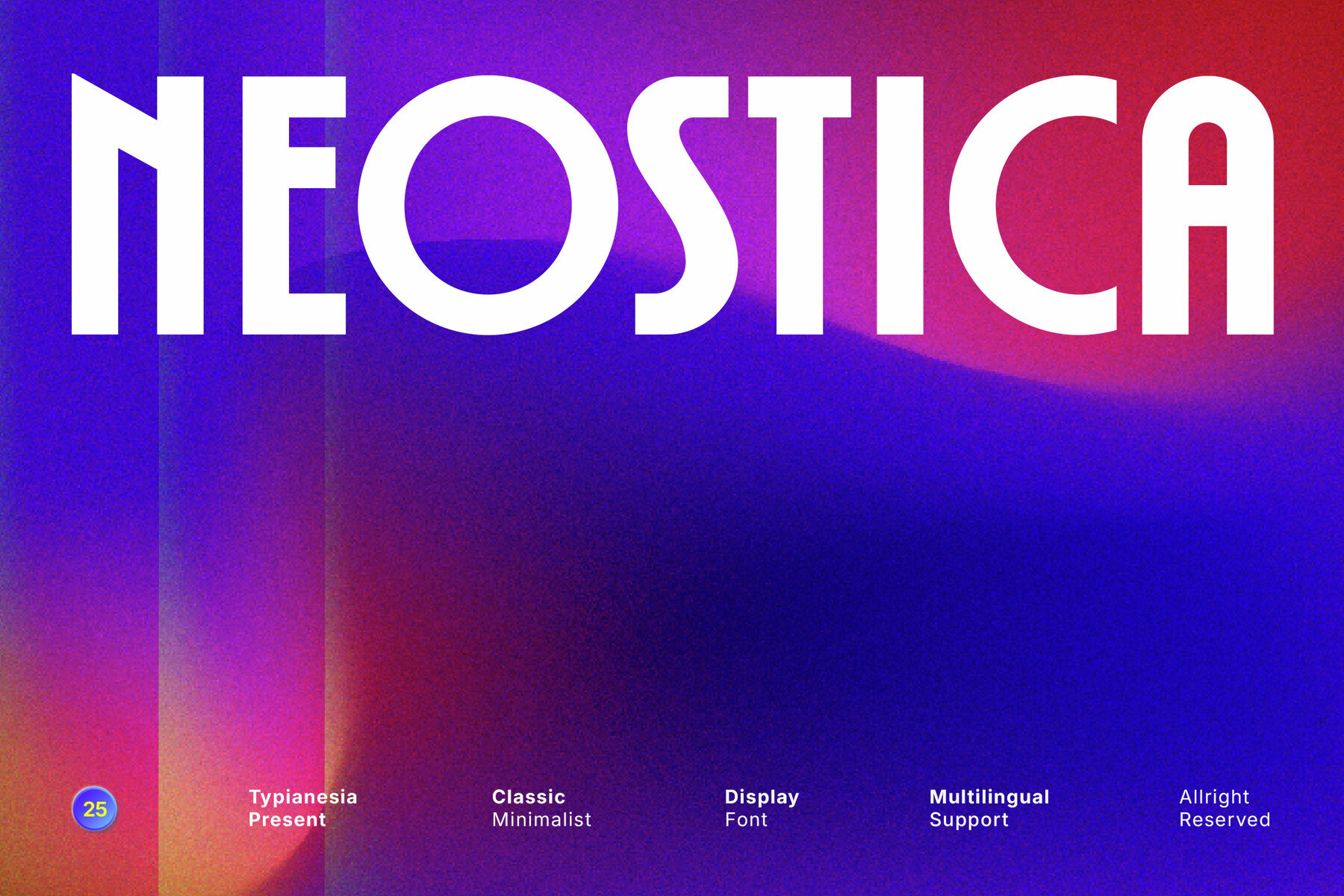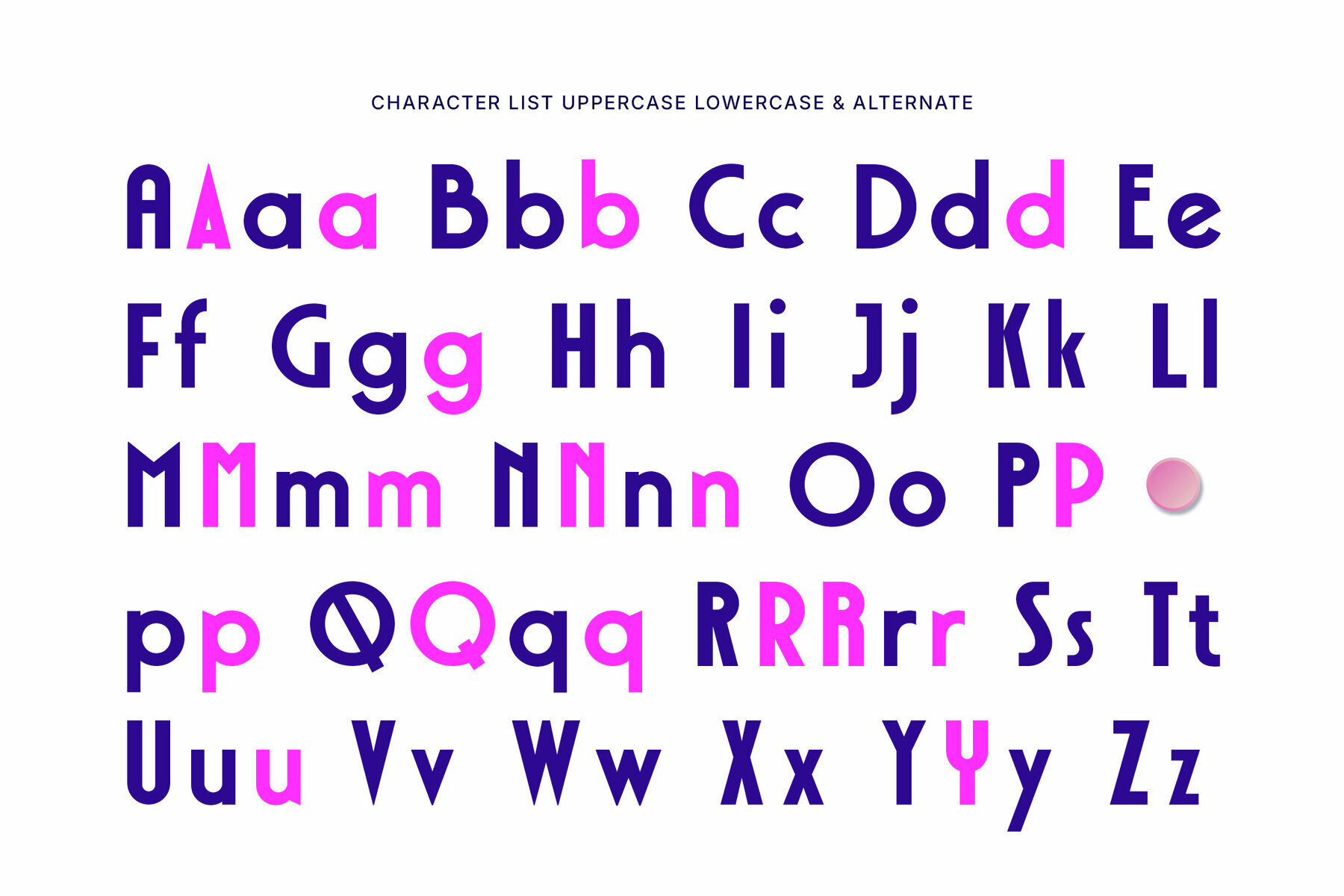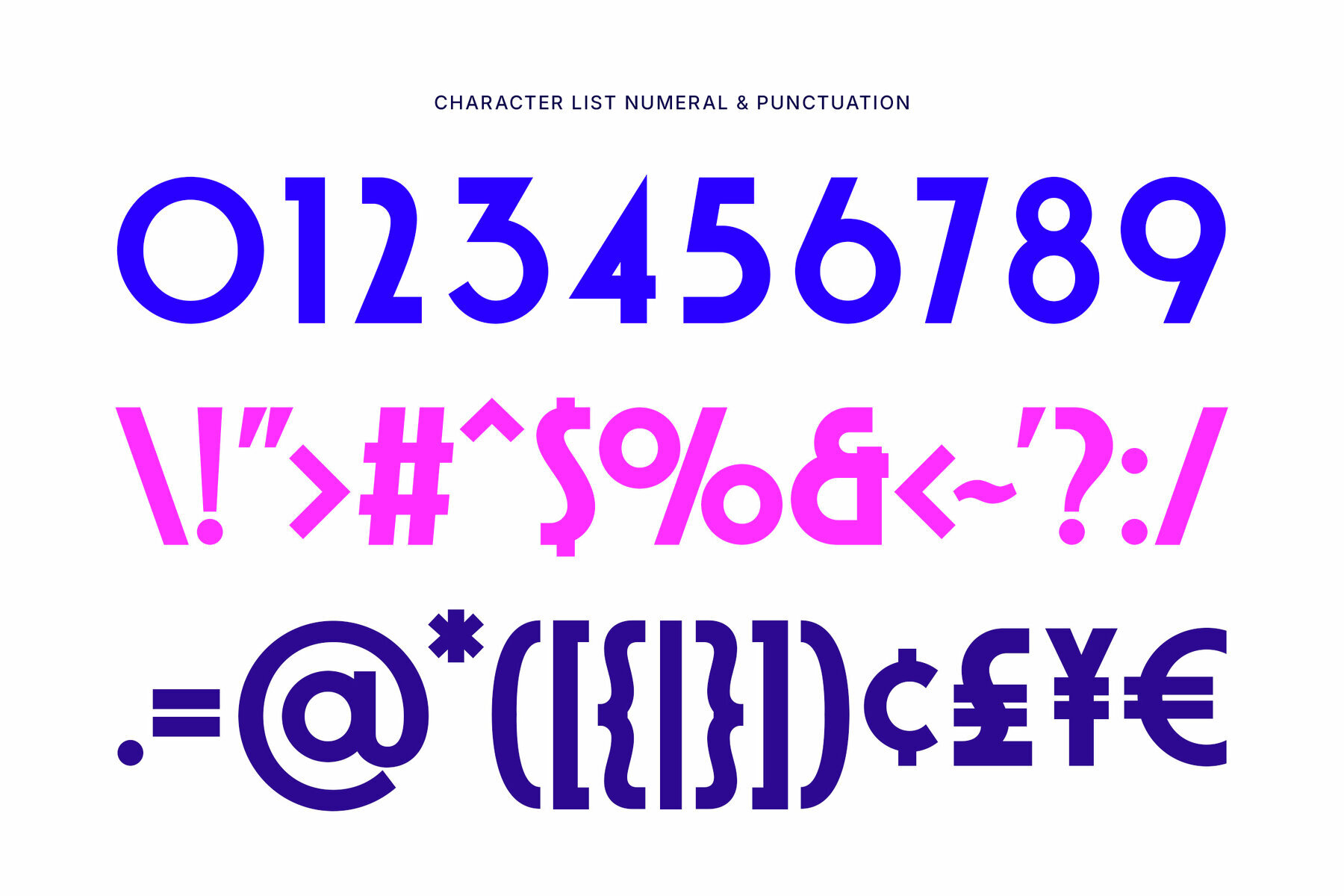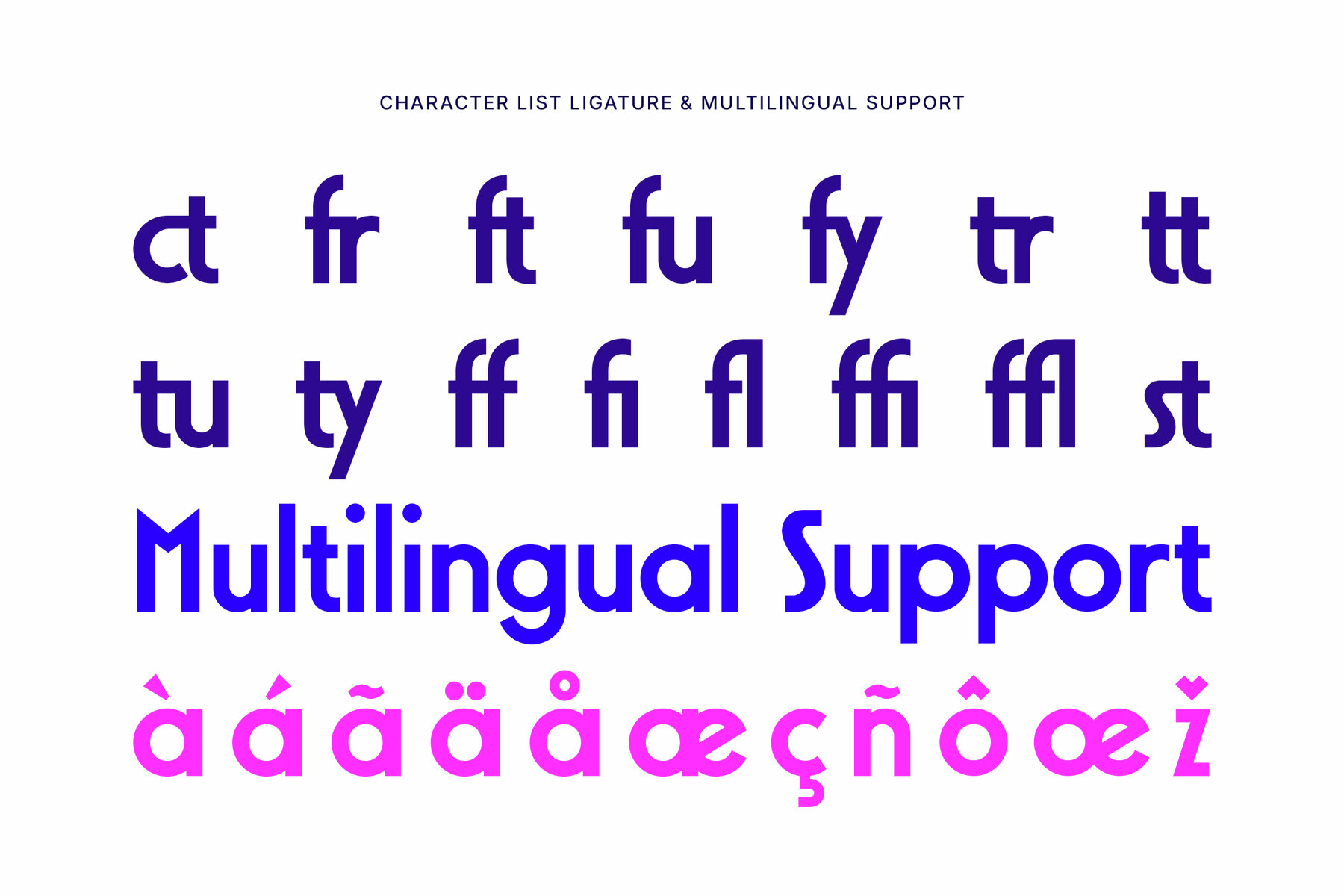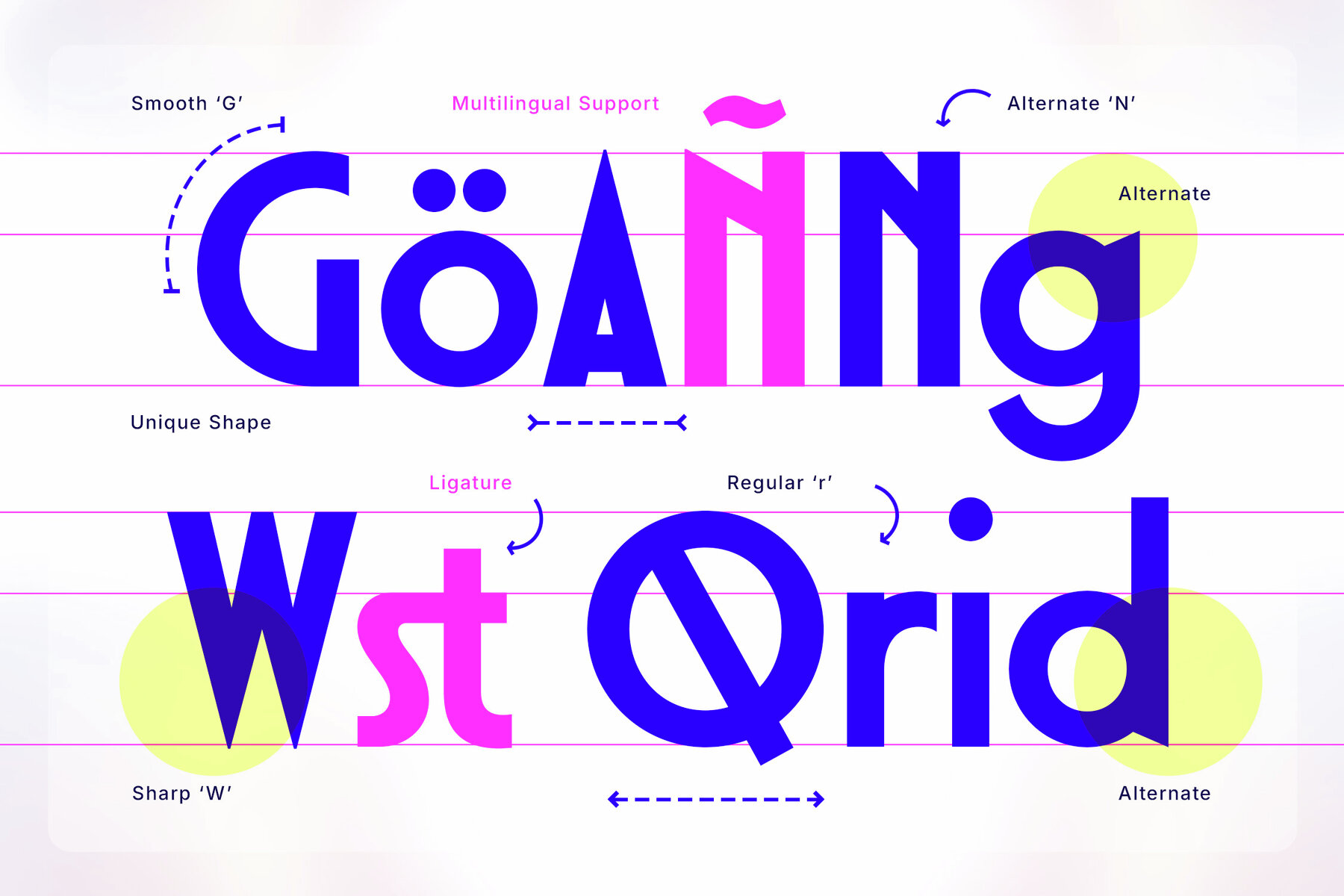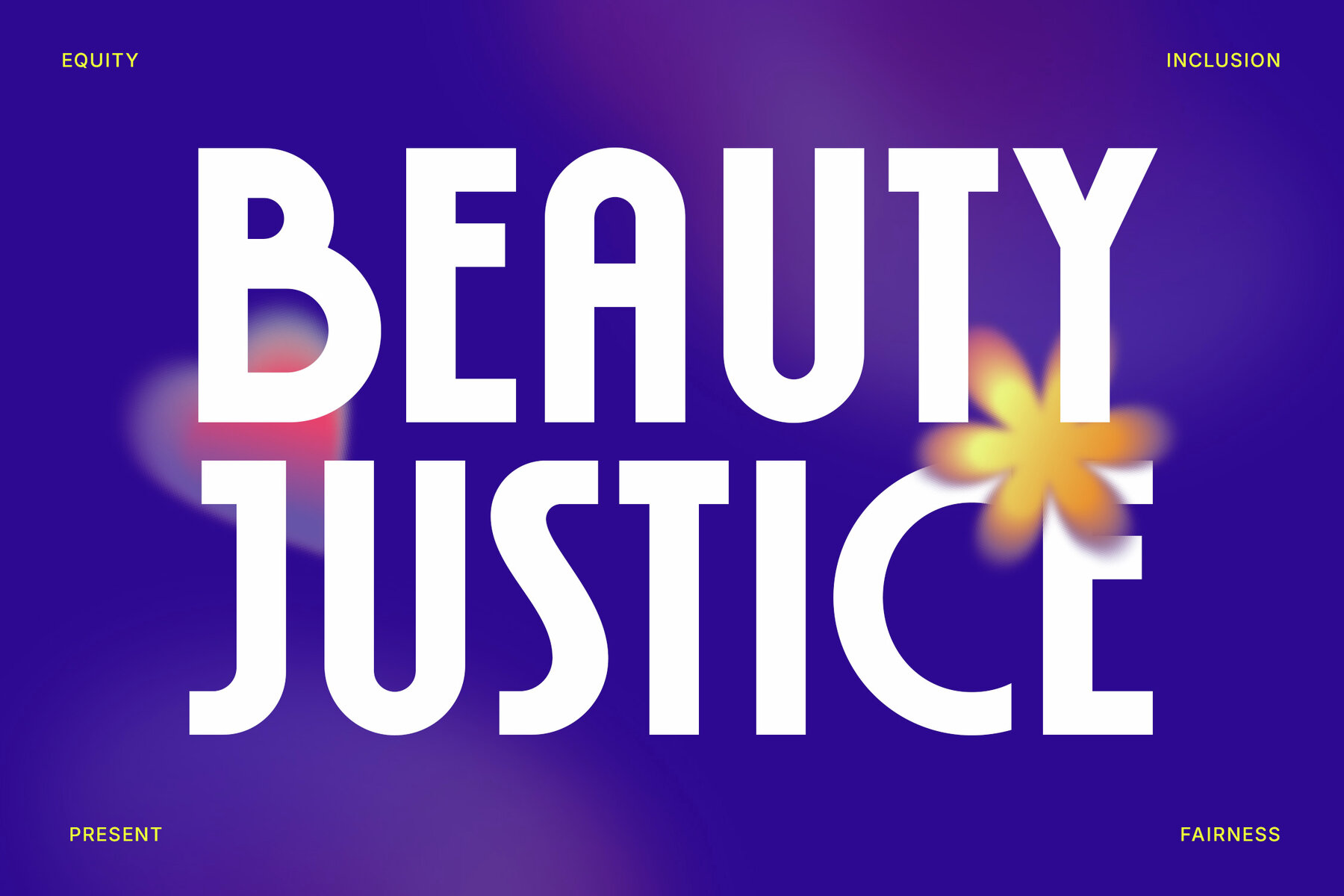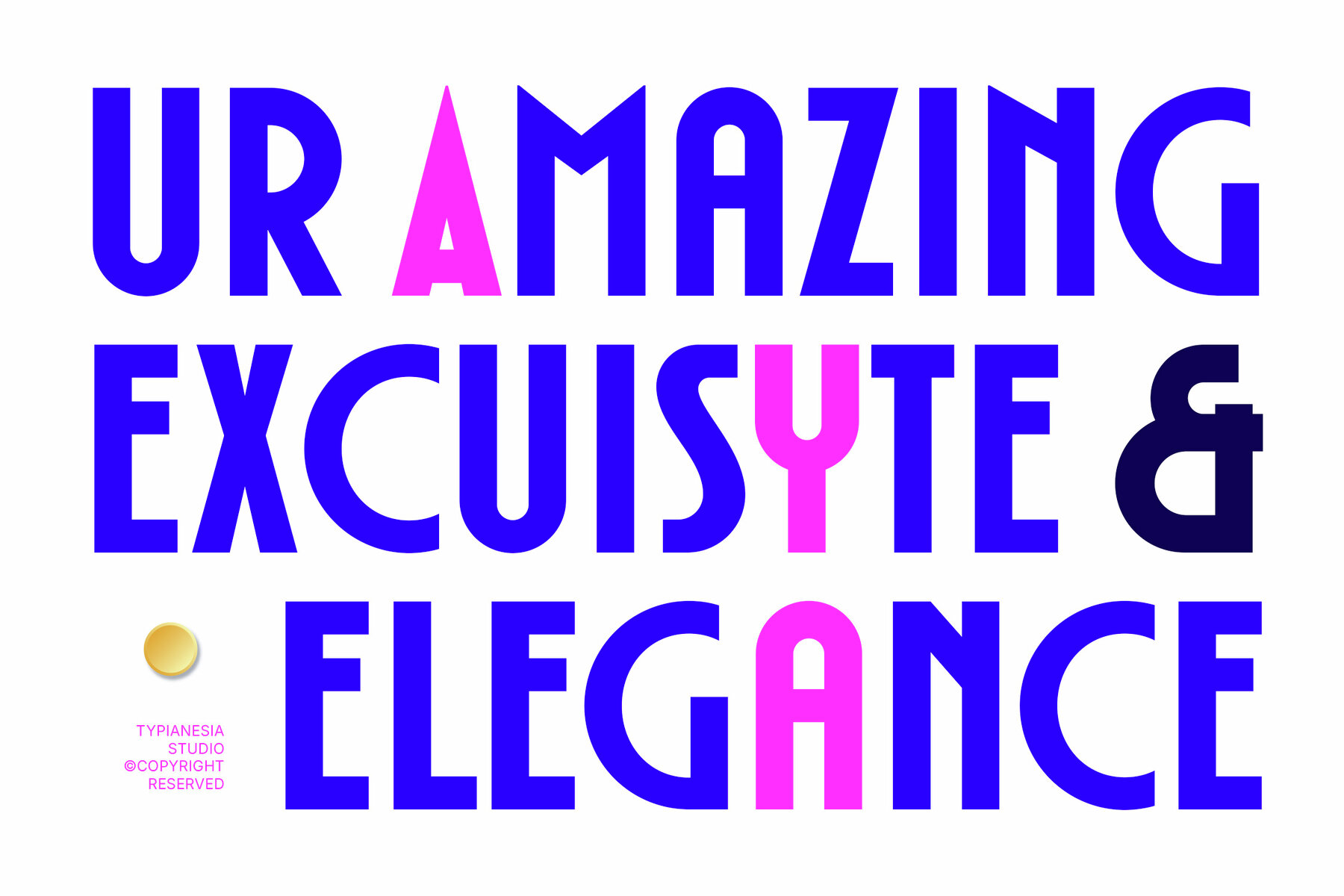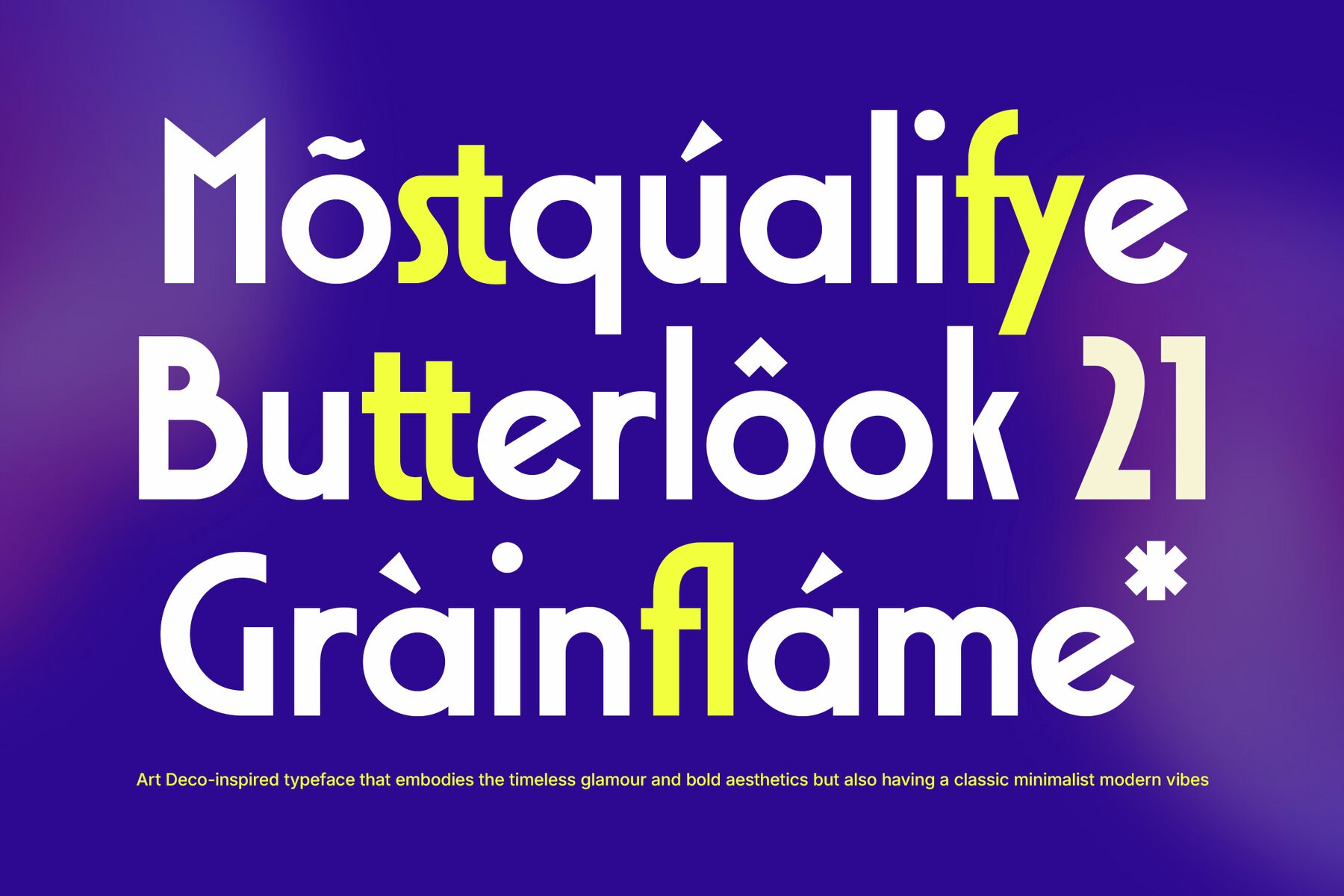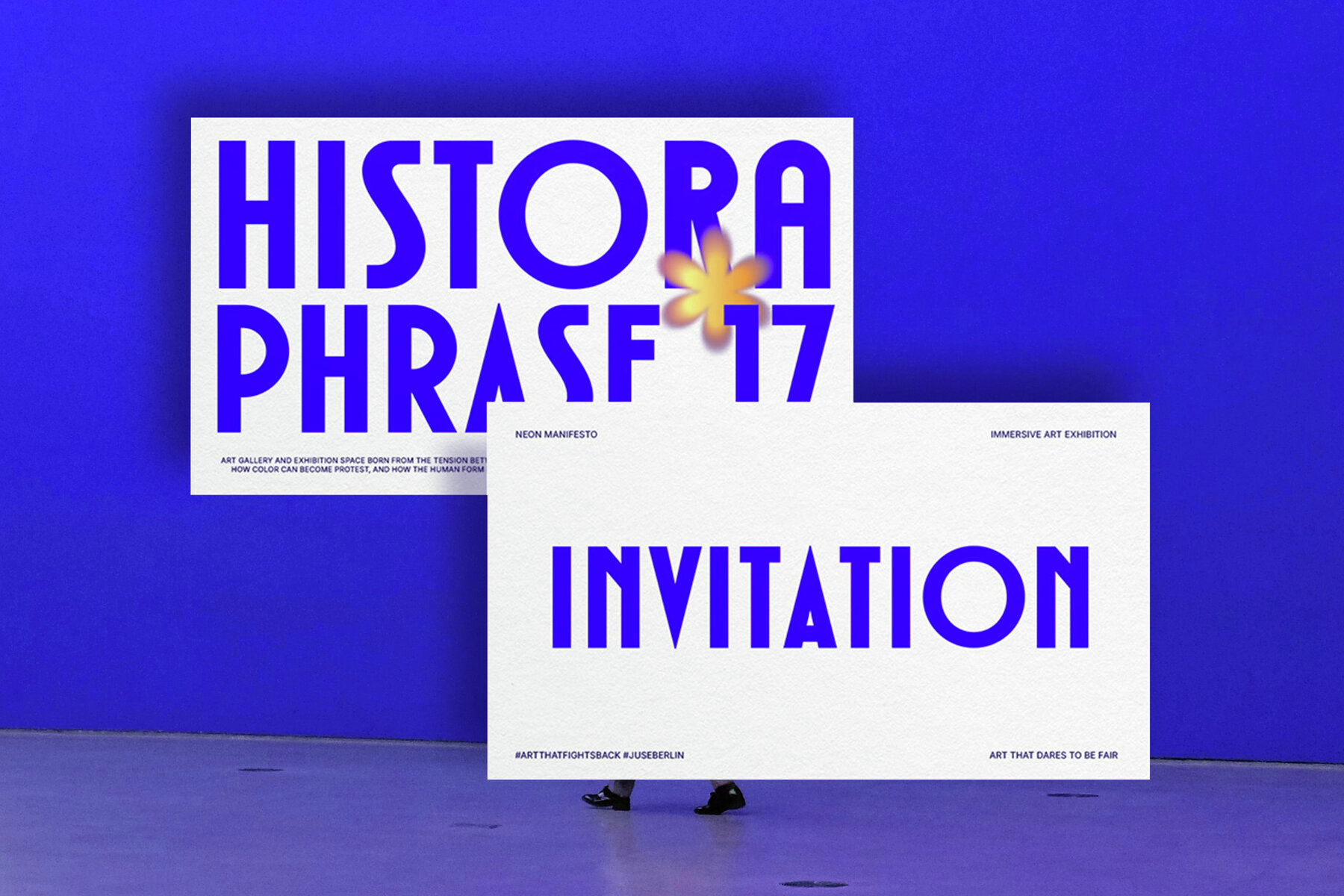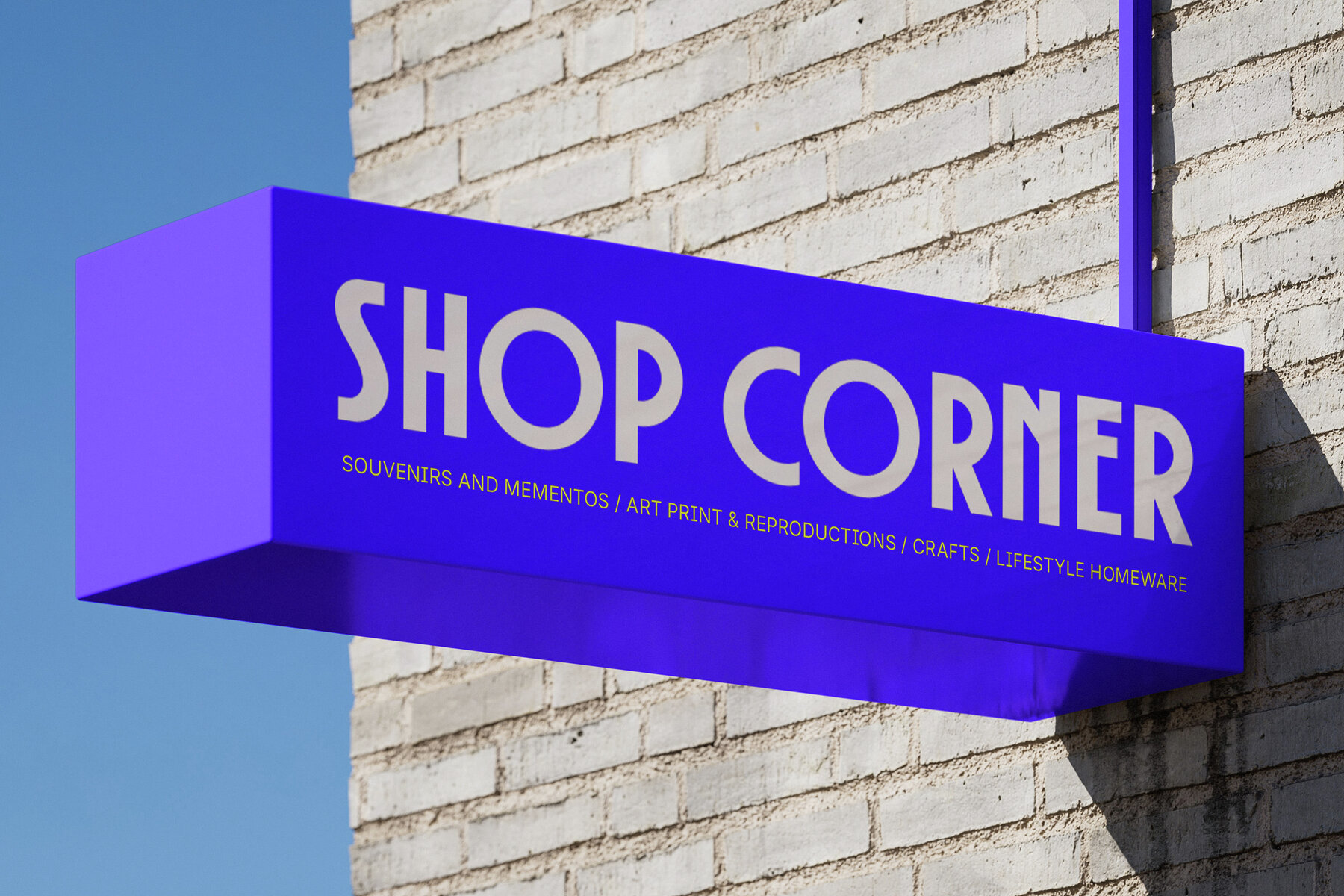
Neostica Font
Neostica Regular
Neostica sets a decisive tone in contemporary typographic design. Its condensed and exceptionally tall letterforms draw from the sophistication of Art Deco while maintaining a clean, minimalist edge, making it an excellent fit for designers seeking clarity and impact in branding projects. The geometric construction and balanced proportions suit a range of applications, from memorable wordmarks and corporate branding to striking headlines and exhibition graphics. The modern aesthetic promotes legibility in both digital and print environments. Features: Neostica’s distinctive rhythm and versatility furnish designers with a sophisticated set of tools to shape powerful visual identities, ensuring relevance across contemporary branding and editorial projects.Neostica: Modern Condensed Tall Typeface for Minimalist Logos